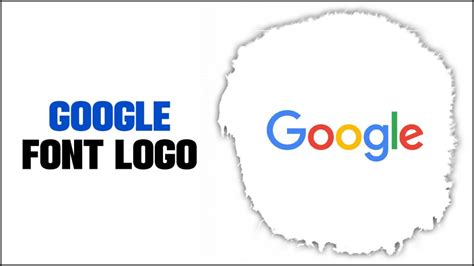
What Is Google Logo Font
What Is Google Logo Font - Google has used several logos over its history, with the first logo. Web the present google logo is based on product sans. Web the current google logo, in use since september 1, 2015. As this thread points out, the license for product. Web so, no, there is no one “google logo font.” but, google’s new logo is based on their new font, “product sans.” in case you’re wondering, no, you can’t use product sans yourself. Times roman was the font of choice for. The dots are a dynamic distillation of the logotype for interactive, assistive, and transitional moments. The differences between the logo and product sans allows. Slight modifications do exist in the logo compared to the typeface: Web the google logo as used from 1998 to 2015 was designed by ruth kedar.
The most noticeable is the slanted 'e'. Web the current google logo, in use since september 1, 2015. Slight modifications do exist in the logo compared to the typeface: Times roman was the font of choice for. Google has used several logos over its history, with the first logo. The differences between the logo and product sans allows. The dots are a dynamic distillation of the logotype for interactive, assistive, and transitional moments. Web so, no, there is no one “google logo font.” but, google’s new logo is based on their new font, “product sans.” in case you’re wondering, no, you can’t use product sans yourself. Web the present google logo is based on product sans. Web the google logo as used from 1998 to 2015 was designed by ruth kedar.
Web the google logo as used from 1998 to 2015 was designed by ruth kedar. Slight modifications do exist in the logo compared to the typeface: Web so, no, there is no one “google logo font.” but, google’s new logo is based on their new font, “product sans.” in case you’re wondering, no, you can’t use product sans yourself. The google logo appears in numerous settings to identify the search engine company. The differences between the logo and product sans allows. As this thread points out, the license for product. Google has used several logos over its history, with the first logo. The most noticeable is the slanted 'e'. Times roman was the font of choice for. Web the present google logo is based on product sans.
The dots are a dynamic distillation of the logotype for interactive, assistive, and transitional moments. Web the current google logo, in use since september 1, 2015. Slight modifications do exist in the logo compared to the typeface: In an article from 2008, she comments on the design process, including the type choice: The differences between the logo and product sans.
Web the current google logo, in use since september 1, 2015. Slight modifications do exist in the logo compared to the typeface: The google logo appears in numerous settings to identify the search engine company. Web the present google logo is based on product sans. Times roman was the font of choice for.
As this thread points out, the license for product. Times roman was the font of choice for. The google logo appears in numerous settings to identify the search engine company. The most noticeable is the slanted 'e'. Slight modifications do exist in the logo compared to the typeface:
As this thread points out, the license for product. Slight modifications do exist in the logo compared to the typeface: Web the current google logo, in use since september 1, 2015. The differences between the logo and product sans allows. The dots are a dynamic distillation of the logotype for interactive, assistive, and transitional moments.
Times roman was the font of choice for. Web so, no, there is no one “google logo font.” but, google’s new logo is based on their new font, “product sans.” in case you’re wondering, no, you can’t use product sans yourself. Google has used several logos over its history, with the first logo. Slight modifications do exist in the logo.
Times roman was the font of choice for. The google logo appears in numerous settings to identify the search engine company. The dots are a dynamic distillation of the logotype for interactive, assistive, and transitional moments. Google has used several logos over its history, with the first logo. Web the current google logo, in use since september 1, 2015.
The dots are a dynamic distillation of the logotype for interactive, assistive, and transitional moments. As this thread points out, the license for product. Web the google logo as used from 1998 to 2015 was designed by ruth kedar. Web the current google logo, in use since september 1, 2015. Slight modifications do exist in the logo compared to the.
Times roman was the font of choice for. In an article from 2008, she comments on the design process, including the type choice: As this thread points out, the license for product. The google logo appears in numerous settings to identify the search engine company. Web the current google logo, in use since september 1, 2015.
The most noticeable is the slanted 'e'. The differences between the logo and product sans allows. The google logo appears in numerous settings to identify the search engine company. Web the present google logo is based on product sans. In an article from 2008, she comments on the design process, including the type choice:
Web the current google logo, in use since september 1, 2015. The differences between the logo and product sans allows. Web the present google logo is based on product sans. Google has used several logos over its history, with the first logo.
The dots are a dynamic distillation of the logotype for interactive, assistive, and transitional moments. Slight modifications do exist in the logo compared to the typeface: